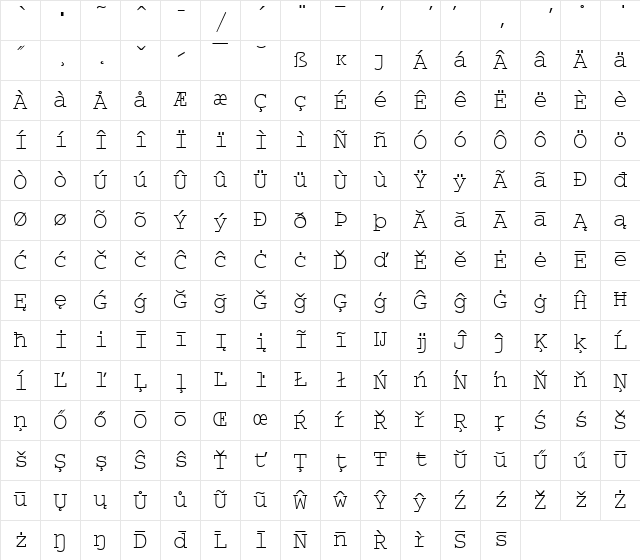
WP MultinationalA Courier Normal
Design Context for WP MultinationalA Courier
WP MultinationalA Courier uses fixed-width spacing throughout, giving it the structured, systematic character associated with coding environments and technical documentation.